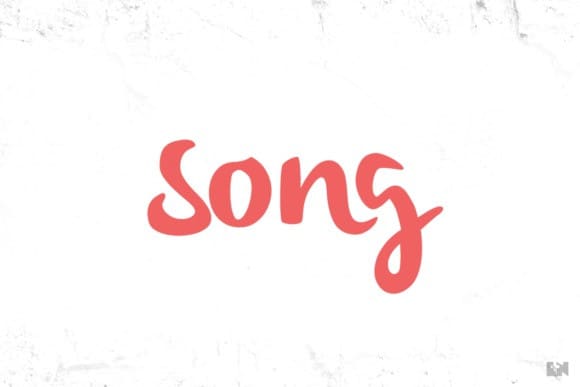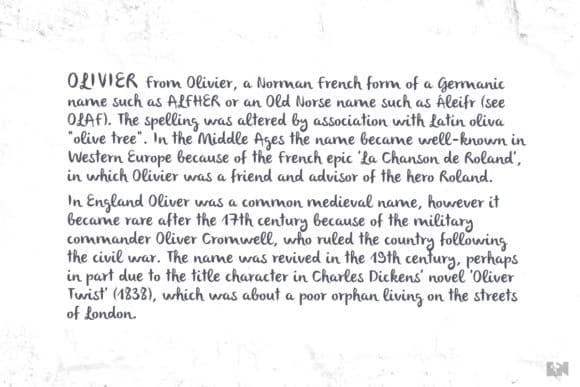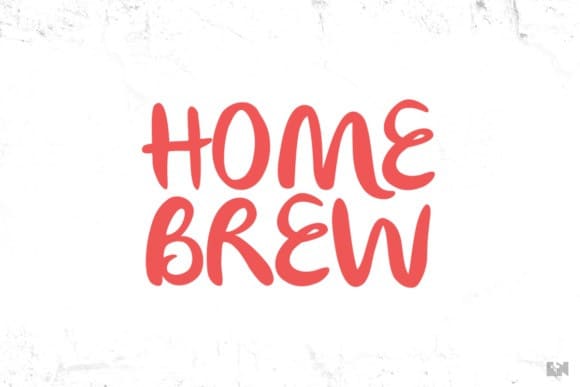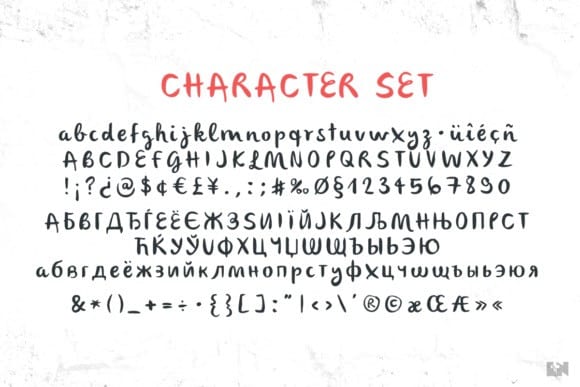
Olivier is based on painted black ink letters. Inspiration for this typeface is fluidity of wine.
Shifting base-, mean- and cap lines, varying tails and ascenders give it an organic, playful feel.